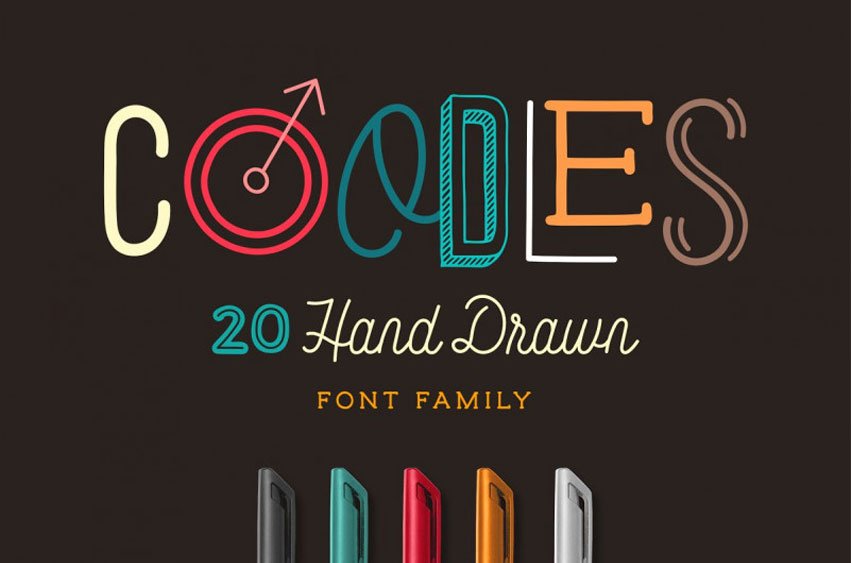
Coodles Font is a large family of fonts featuring all you need to create playful and awesome logos and typography! All of the fonts, including the illustrations are hand drawn and go great with each other!